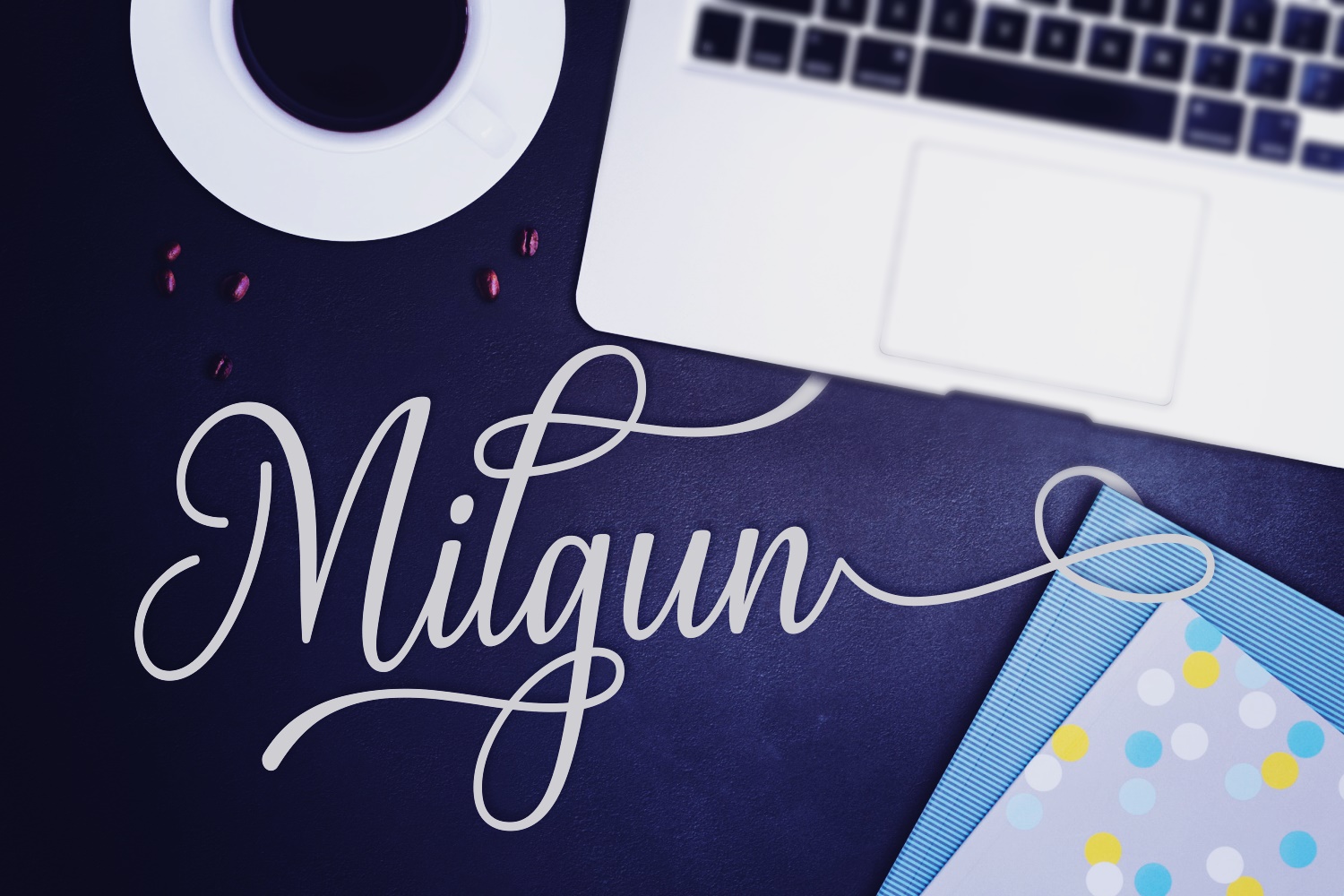
Milgun Font
About Milgun Font
Milgun is a gorgeous and swashy font with tons of elegance and style! This script calligraphy based font is a great way to give your designs a much needed dose of grace and uniqueness as it comes with alternate characters.